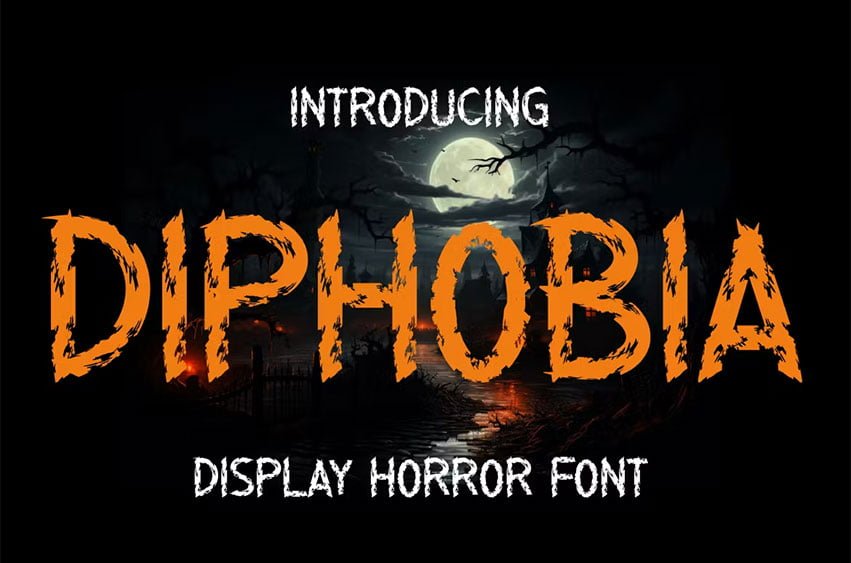
Diphobia Font Display Horor Font. Diphobia is a type of font specifically designed to create a spooky, mysterious atmosphere and depict the spirit of Halloween celebrations. This font can be used in various Halloween-related media, such as party invitations, posters, merchandise designs, greeting cards, warning signs, or within website designs with Halloween themes.